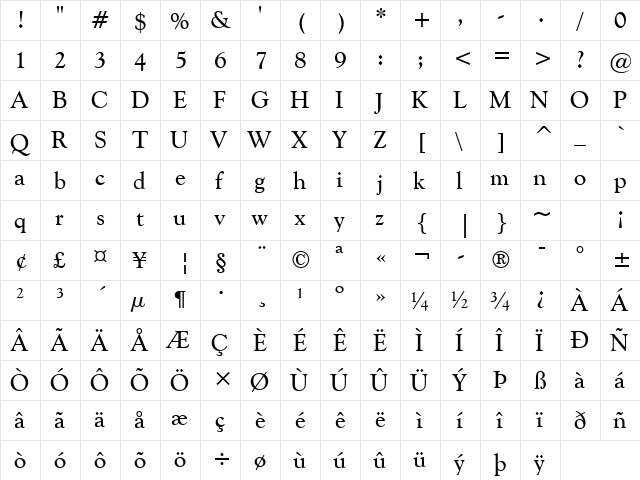
GoudyCatalog BT Regular
Design Context for GoudyCatalog BT Typeface
GoudyCatalog BT takes a measured approach to typography — its balanced proportions and neutral character make it a reliable workhorse for both digital and print work.